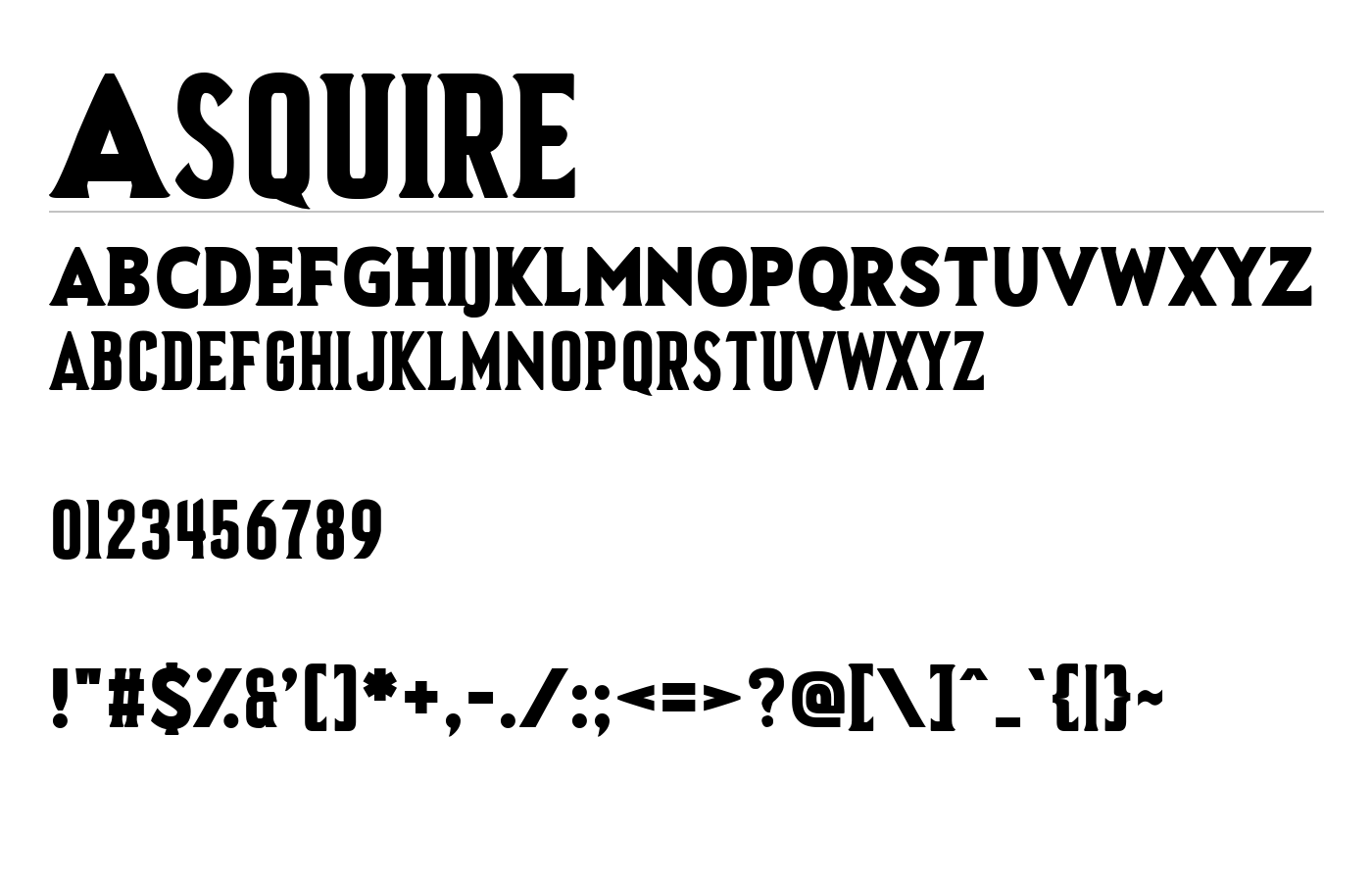
Asquire is a bold, condensed serif font with a strong presence and vintage flair. Featuring high contrast strokes and sharp, bracketed serifs, it blends classic elegance with a modern, assertive style that suits headlines, logos, and branding projects seeking a confident, timeless look. Its unique letterforms and tight spacing make it ideal for fashion, editorial, and luxury design contexts where bold impact and refined personality are essential.
| Font family | Asquire Font |
| Designer | Allison J. James |